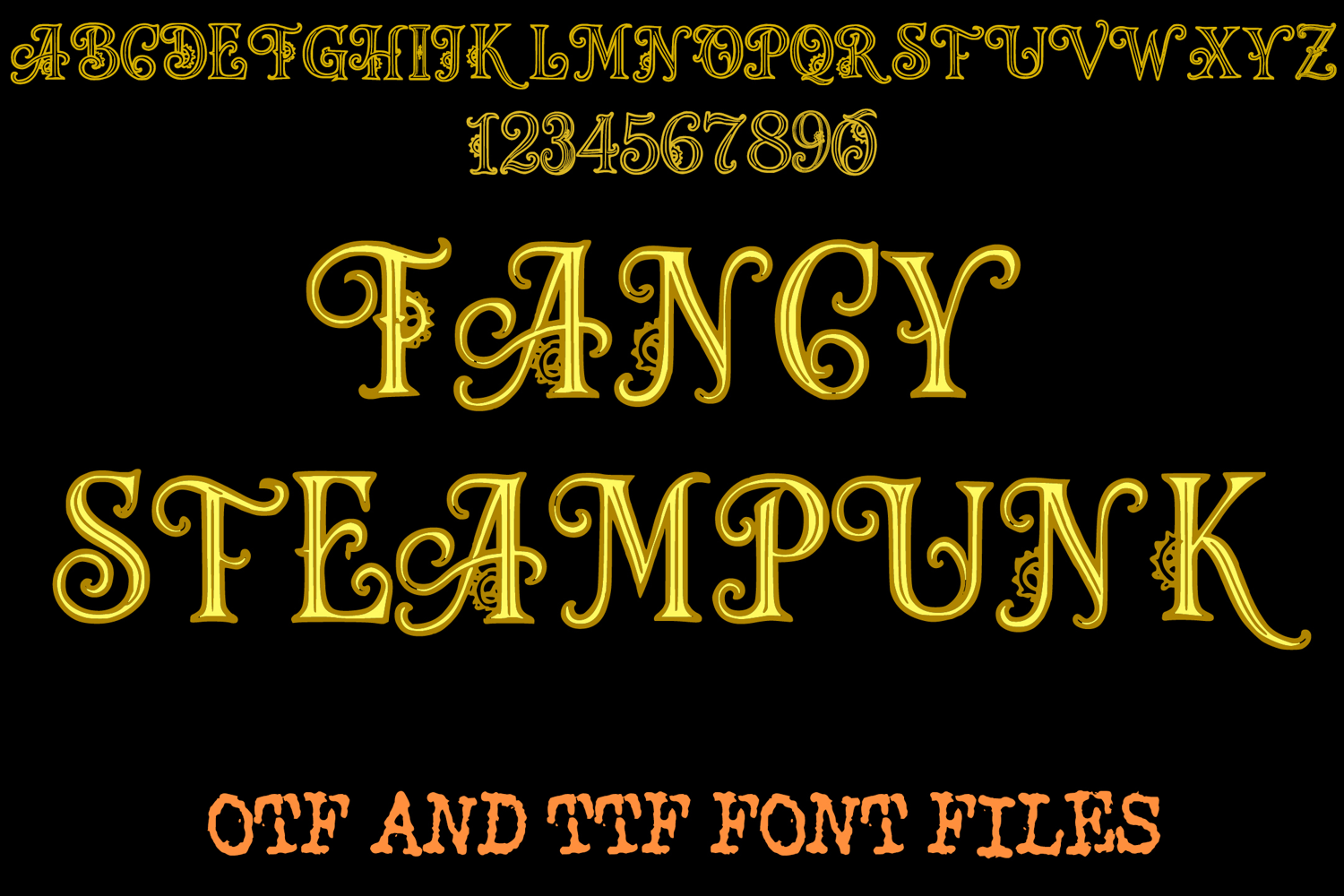
Fancy Steampunk Lettering ABC Text Font Alphabet OTF Type IllustrationÂ
A fun style font where you can create your own words and colour them to your vision!